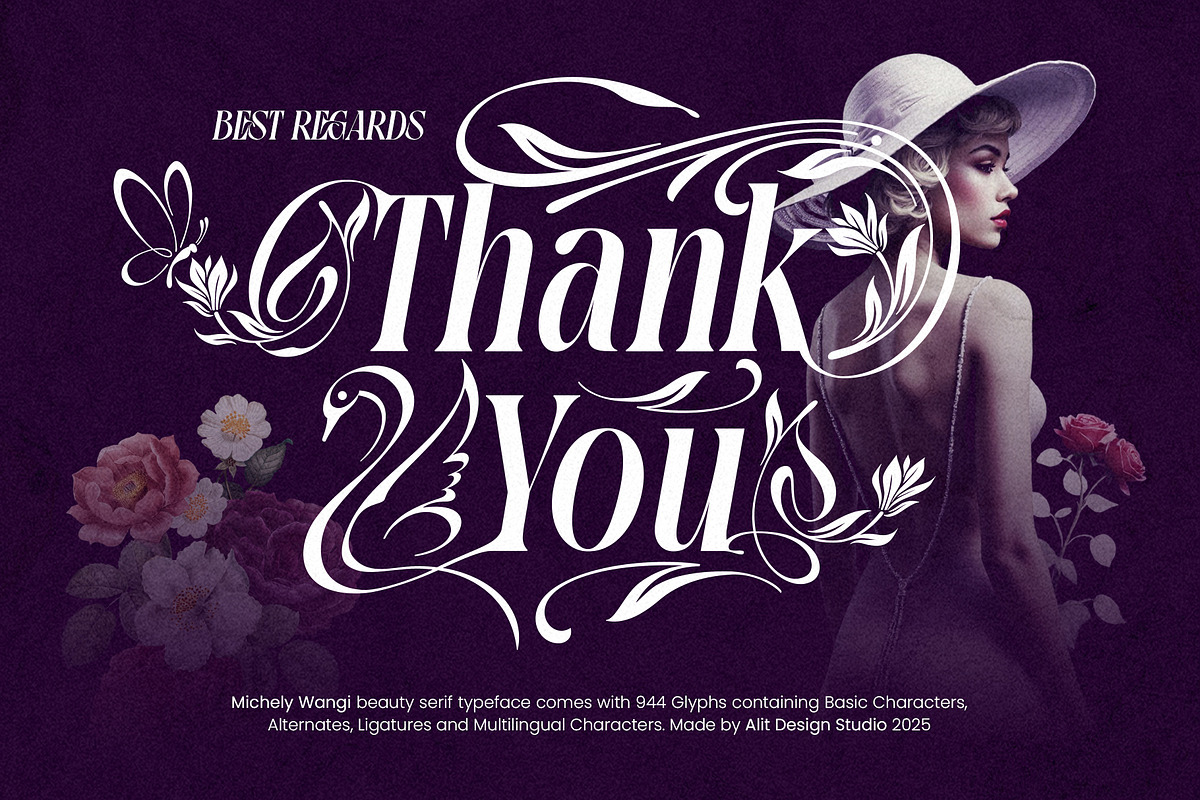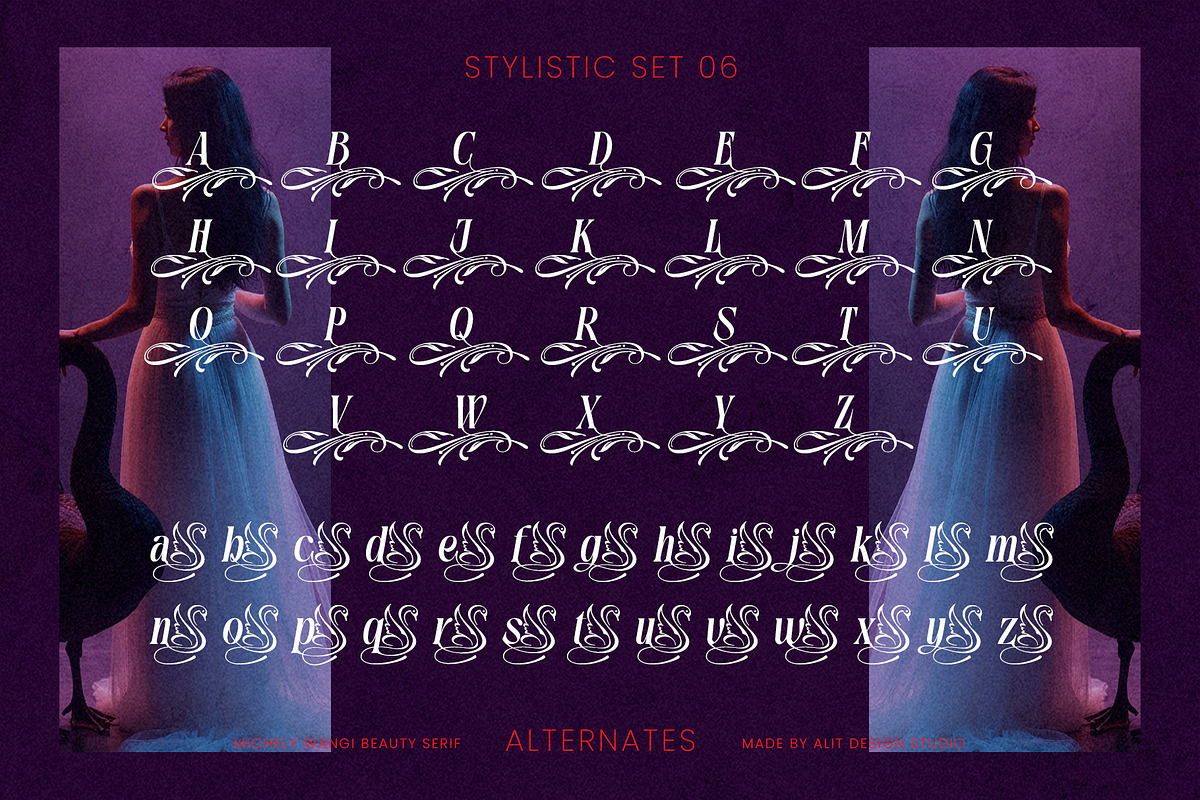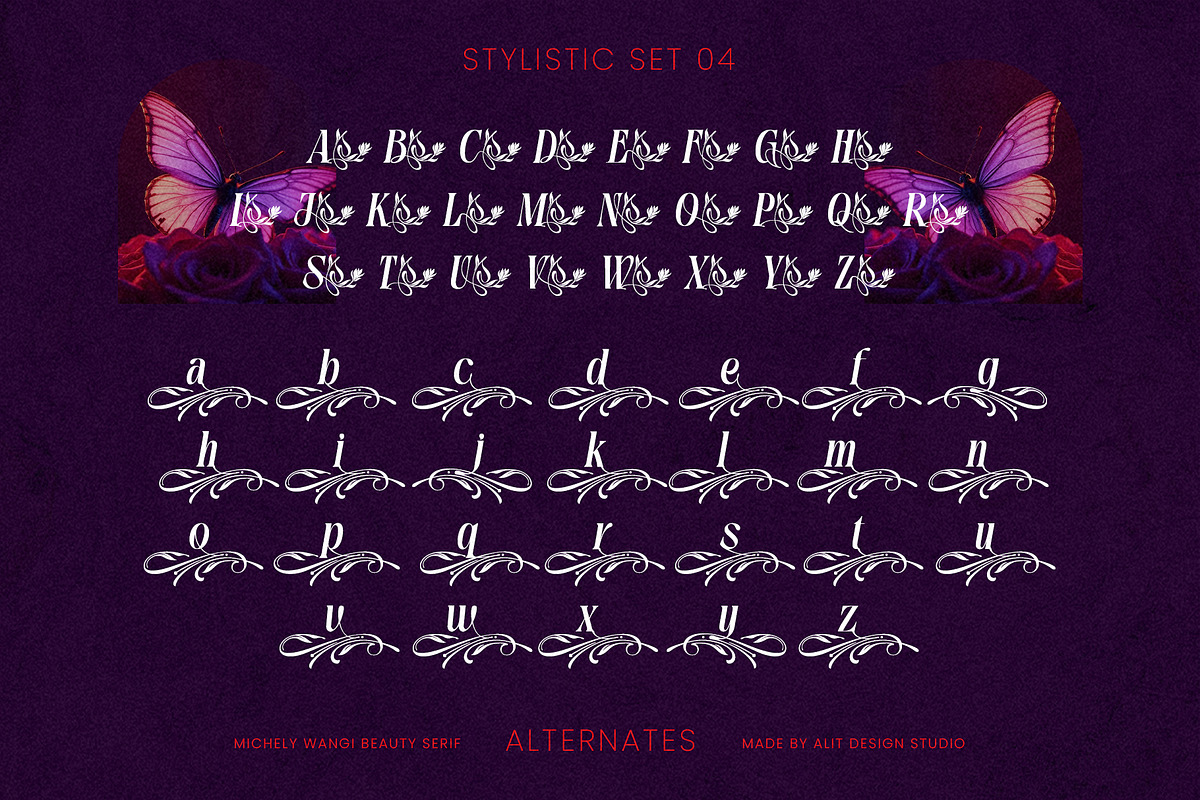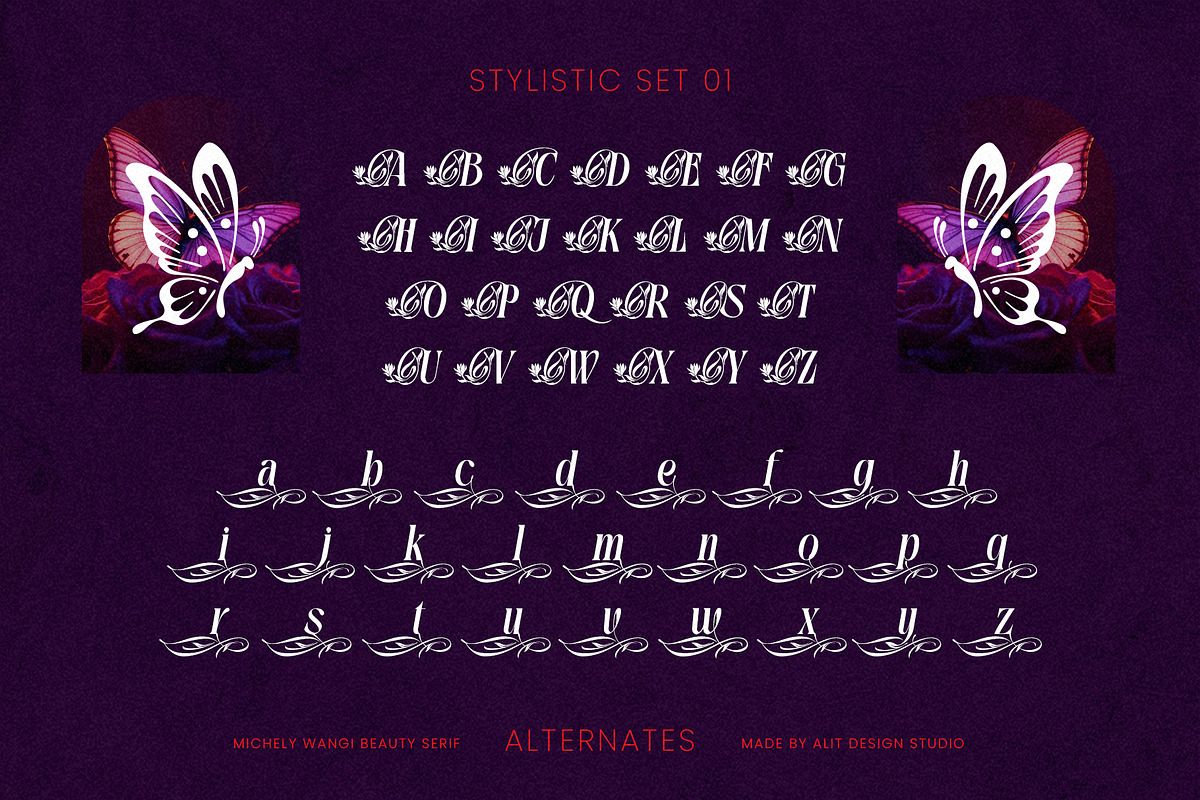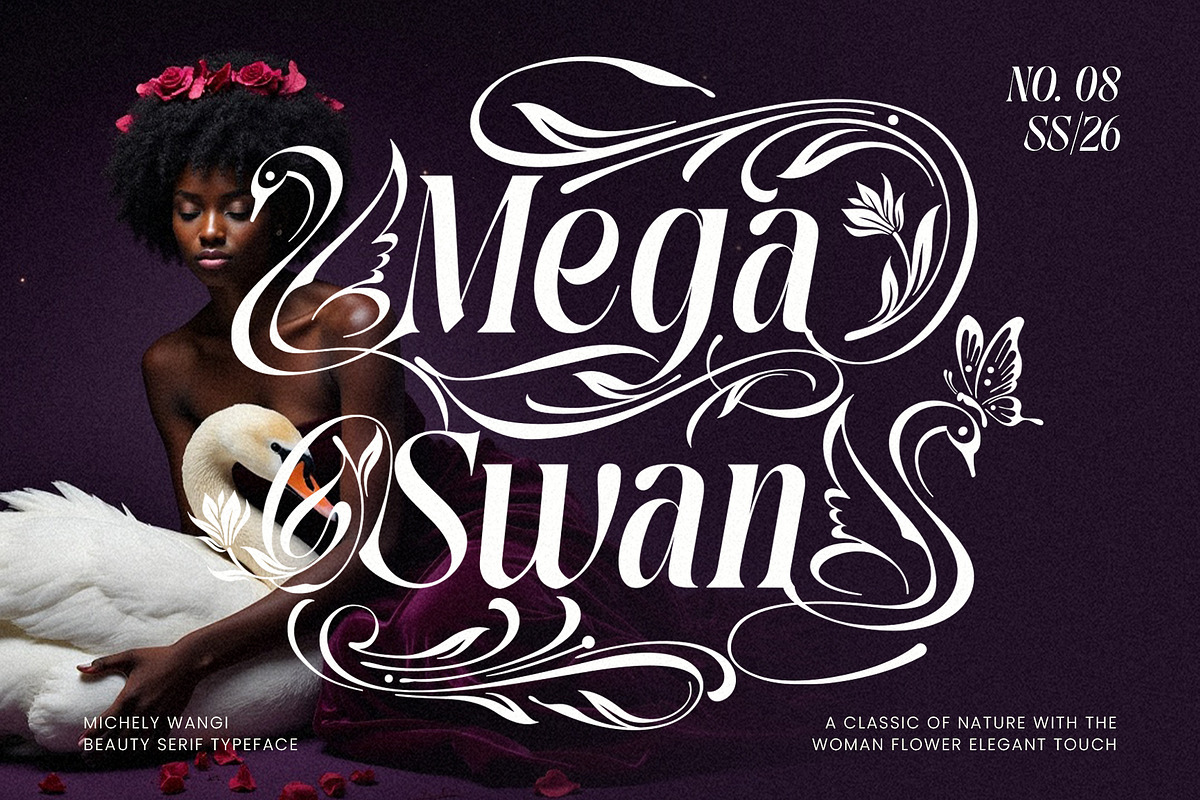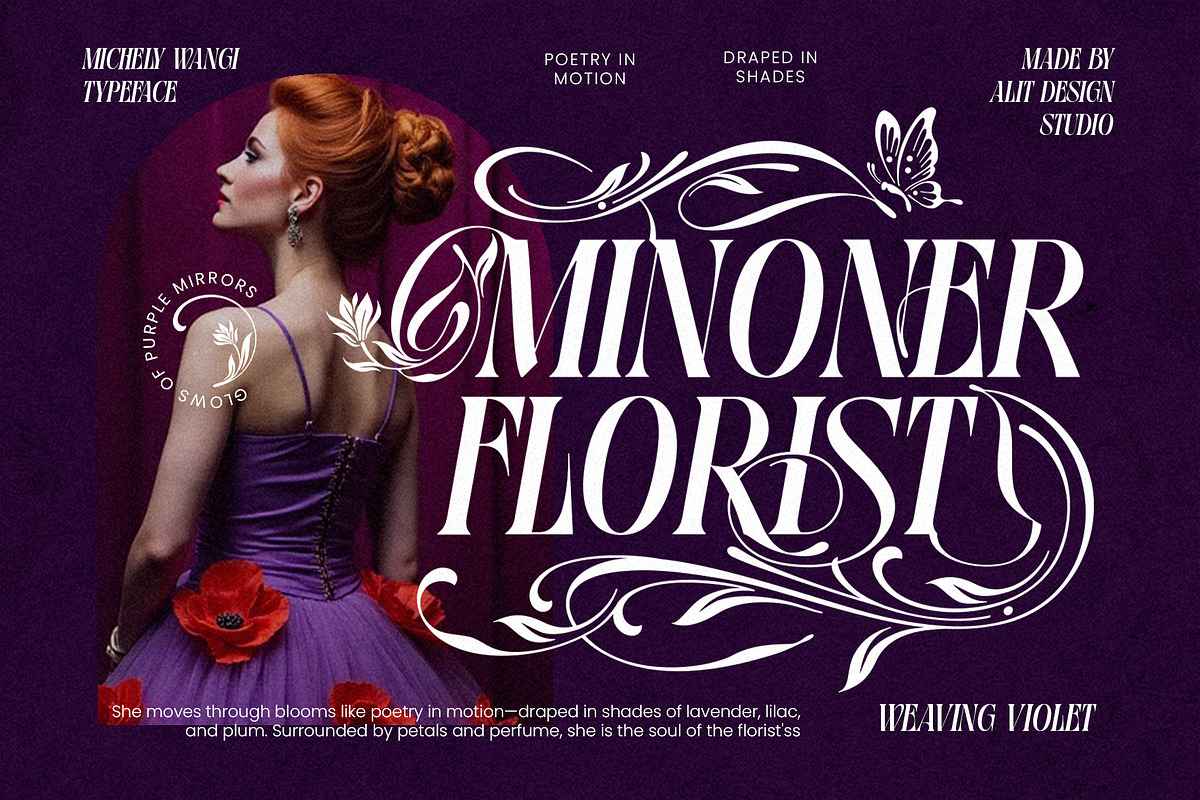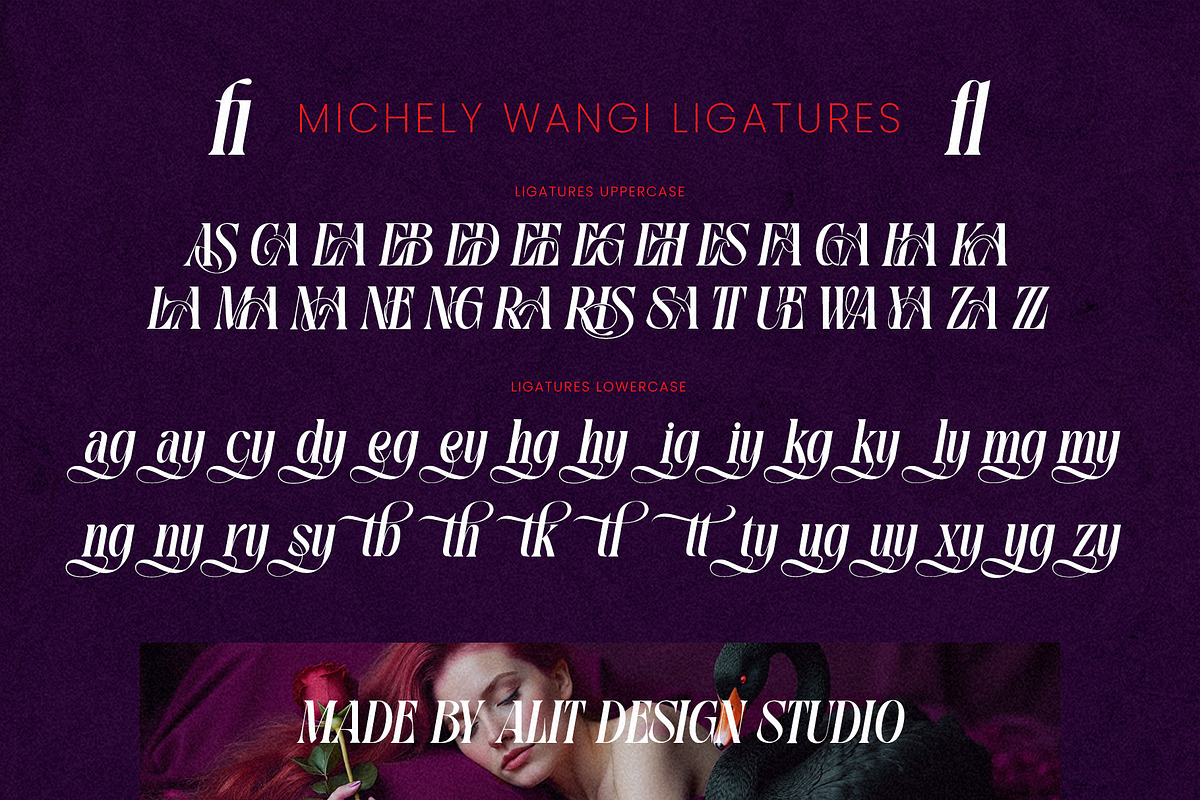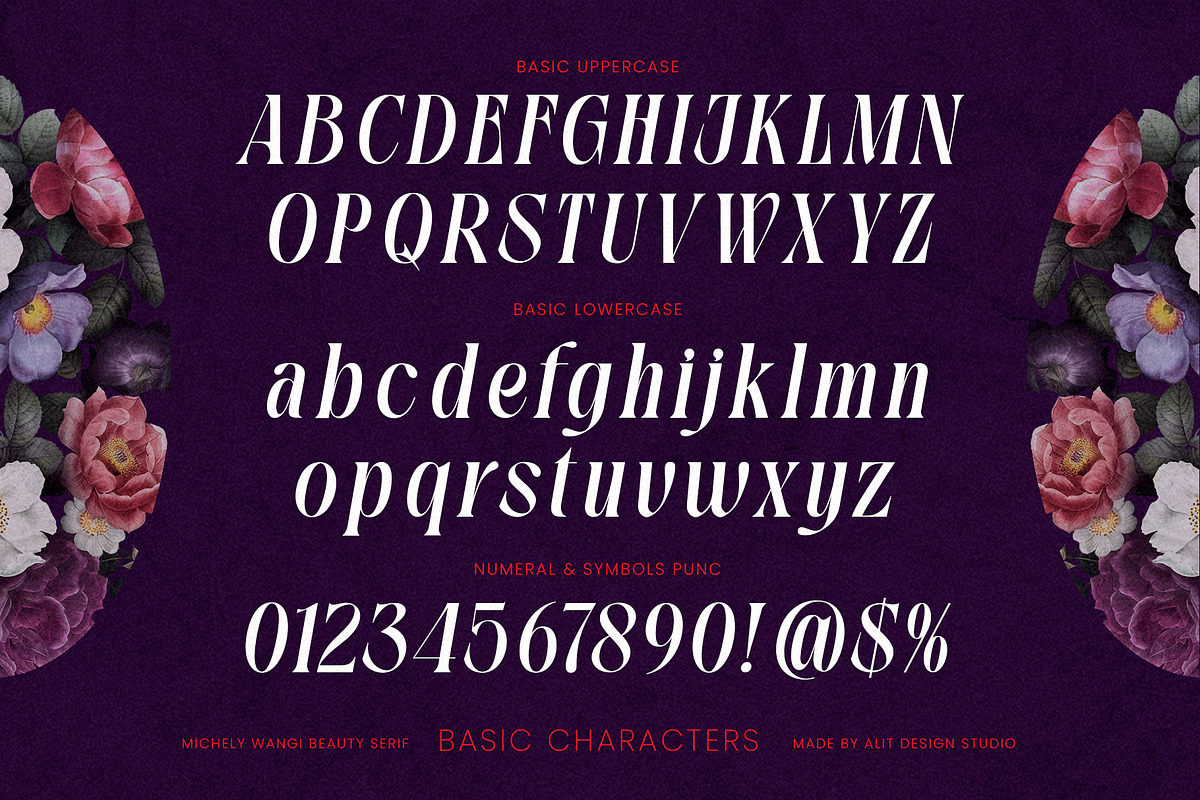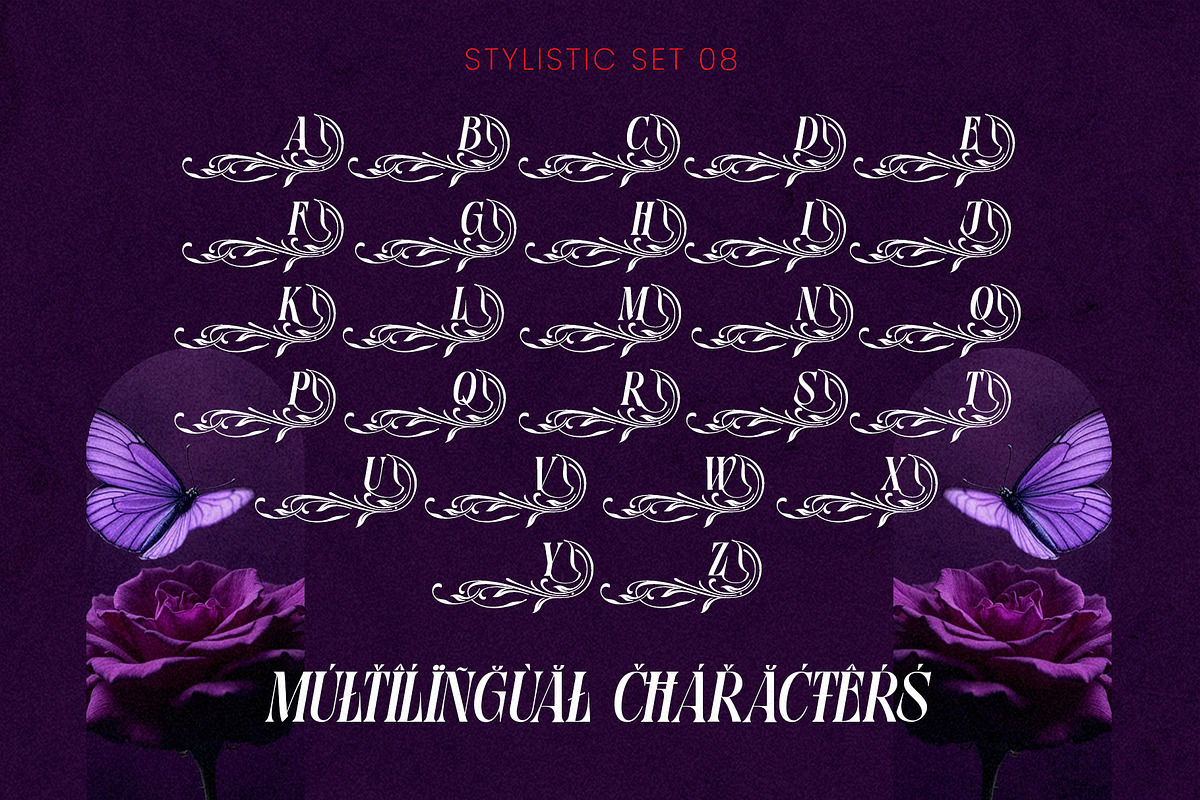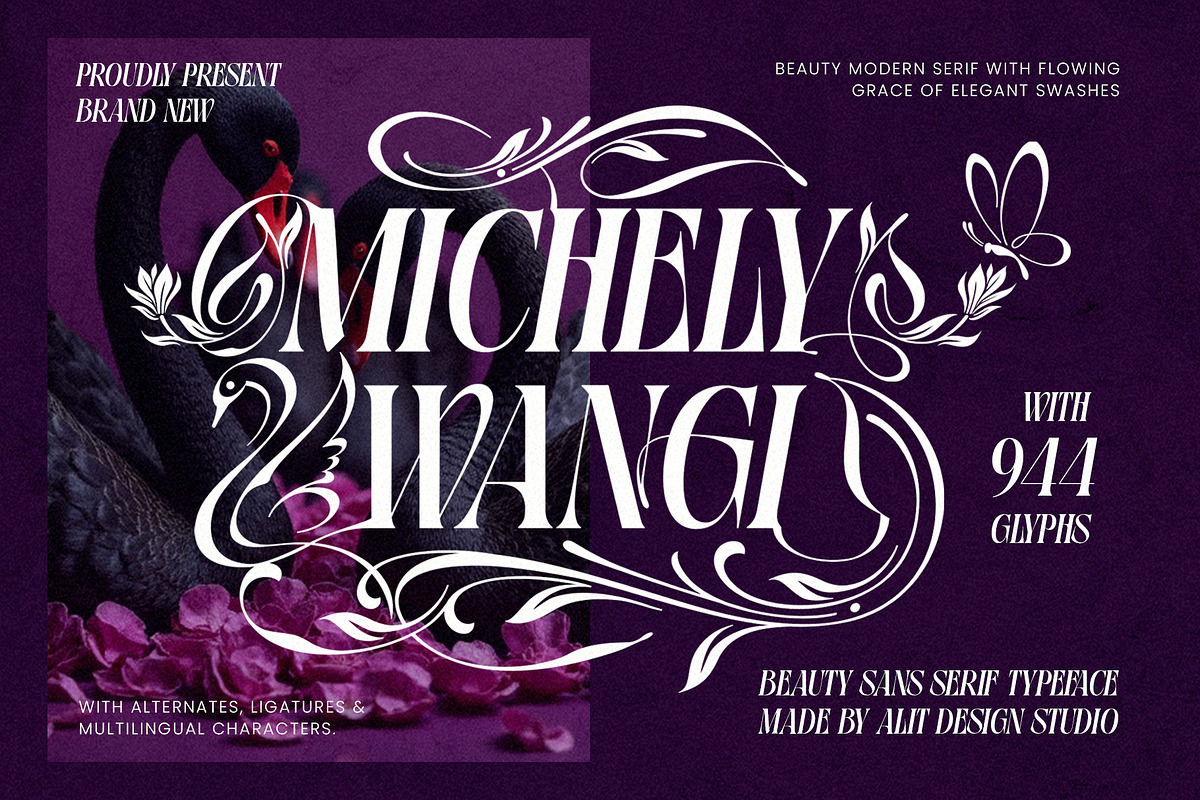
Michely Wangi Elegant Swan Serif
Michely Wangi is a unique slanted serif that masterfully blends its strong, classic letterforms with the elaborate, flowing swashes typically found in script fonts. This fusion creates a dynamic and expressive typeface that is both readable and artistically stunning. Each character is meticulously crafted to feel alive, making it perfect for designs that require a statement of luxury, elegance, and natural charm.
From wedding invitations that whisper romance to branding that speaks of luxury, Michely Wangi provides the versatility and beauty you need. The font is rich with decorative elements, allowing you to transform simple text into a captivating piece of art.
- An Abundance of Glyphs: Unlock endless creative possibilities with a massive collection of 944 characters.
- Nature-Inspired Swashes: Elevate your text with unique swashes beautifully shaped like swans, leaves, flowers, and butterflies. These intricate details are woven directly into the alternate characters.
- Elegant Alternates & Ligatures: Effortlessly create custom and organic-looking typography with a vast selection of stylistic alternates and ligatures.
- Multilingual Support: Reach a global audience with comprehensive support for a wide range of languages.
- Perfect for Any Elegant Project: Ideal for wedding stationery, luxury branding, logos, magazine titles, romantic quotes, packaging, and more.
- EXCLUSIVE BONUS: A beautiful set of matching ornaments, including delicate butterflies, graceful swans, and elegant leaf arrangements to perfectly complement your designs.